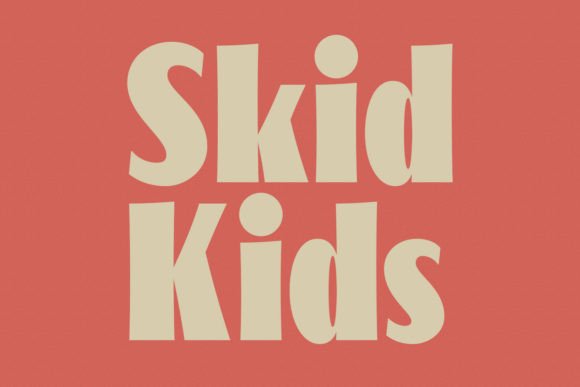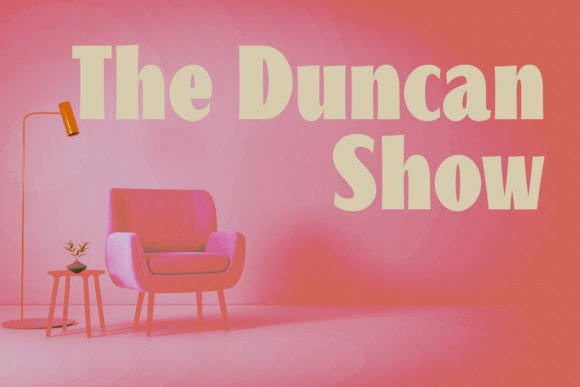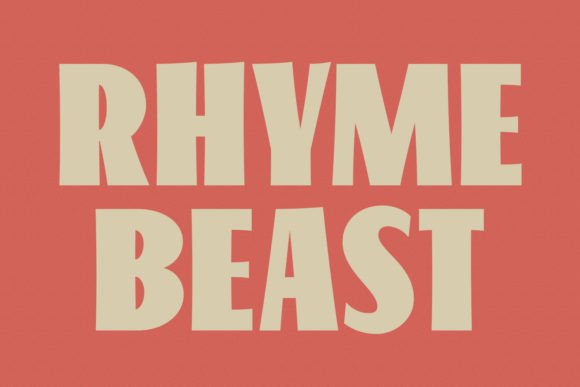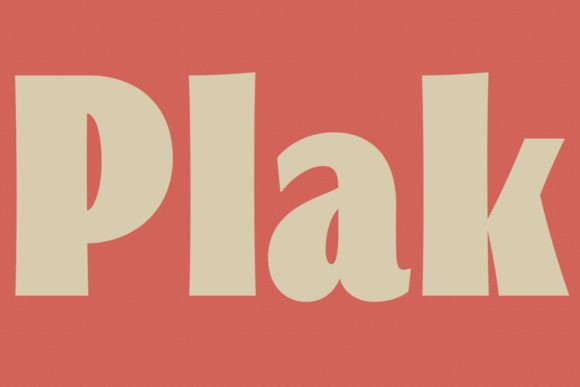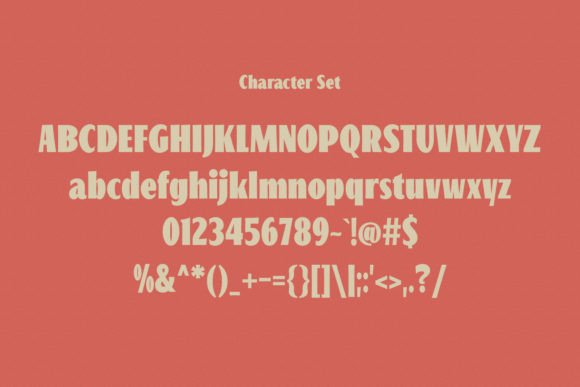
The Retro Charm of Croneman Font: A Designer’s Delight
I’ll never forget the struggle I faced while working on a logo design project for a vintage-inspired clothing brand. The client wanted a font that would transport their customers back to the good old days, but I was stuck with a bland, generic sans-serif font. That’s when I stumbled upon Croneman Font, a retro sans display font that instantly caught my attention. In this article, I’ll share my experience with Croneman, its features, and how to make the most of it in your designs.
A Personal Review: What I Love About Croneman
Croneman Font has become a staple in my design toolkit, and here’s why:
- ✨ Retro charm: Croneman’s unique blend of vintage and modern elements makes it perfect for designs that require a nostalgic feel.
- ✅ Versatility: This font is not just limited to logos; it’s great for social media posts, movie titles, book titles, and even long text letters.
- 💡 Pairing flexibility: Croneman works beautifully with script or serif fonts, making it an excellent choice for secondary text fonts.
While Croneman is an excellent font, there are a few things to keep in mind:
- ⚠️ Legibility at small sizes: Like many display fonts, Croneman may not be the best choice for body text or small font sizes.
- 🤔 Overuse of stylistic alternates: With great power comes great responsibility! Be mindful of overusing stylistic alternates, as it can make your design look cluttered.
- Experiment with OpenType features like stylistic alternates and glyphs to add visual interest to your text.
The Story Behind Croneman
Croneman Font was inspired by the classic typography of the 1950s and 60s. Its creator, a talented type designer, aimed to craft a font that would evoke a sense of nostalgia while still feeling modern and fresh. The result is a unique blend of retro charm and contemporary style.
| What is Croneman Font best used for? | Croneman Font is ideal for logo design, social media posts, movie titles, book titles, and short to long text letters. |
| Can I use Croneman for body text? | While possible, Croneman is primarily designed as a display font. For body text, consider using a serif or sans-serif font for better legibility. |
With Croneman Font, you can create stunning works that transport your audience to a bygone era. Experiment with its features, and don’t be afraid to push the boundaries of what’s possible. Happy designing!